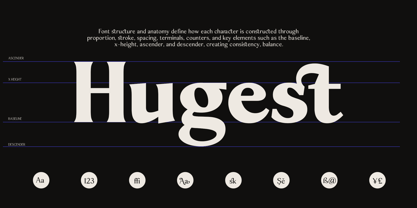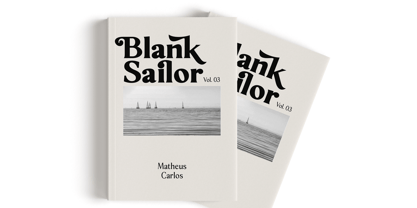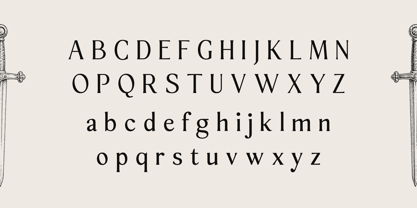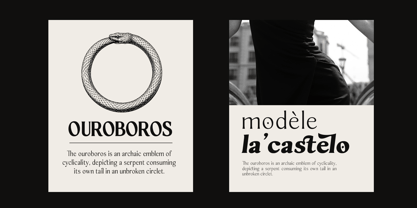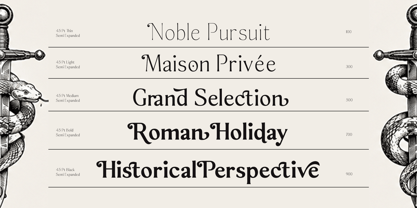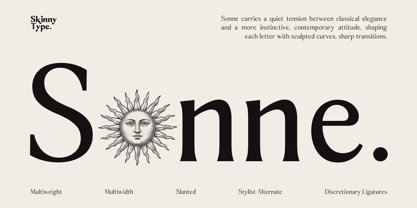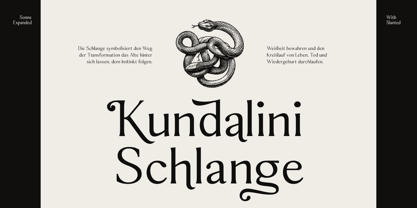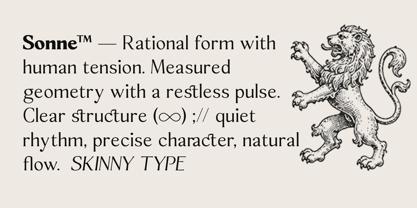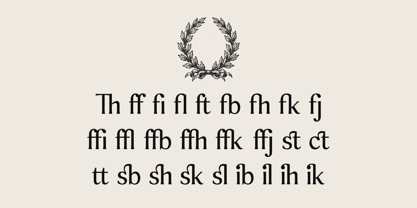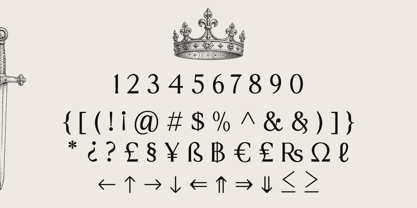
Sonne
by Skinny Type
Sonne carries a quiet tension between classical elegance and a sharper contemporary voice, shaping each letter with sculpted curves, measured contrast, and unexpected details that give the typeface its own rhythm. Its forms feel composed yet expressive, allowing the family to move naturally between restrained sophistication and a more commanding presence, while the slanted styles introduce a subtle sense of movement and attitude. With 90 files across the family, Sonne is built as a broad typographic system for identities, editorials, fashion, cultural projects, and compositions that demand character without becoming excessive.